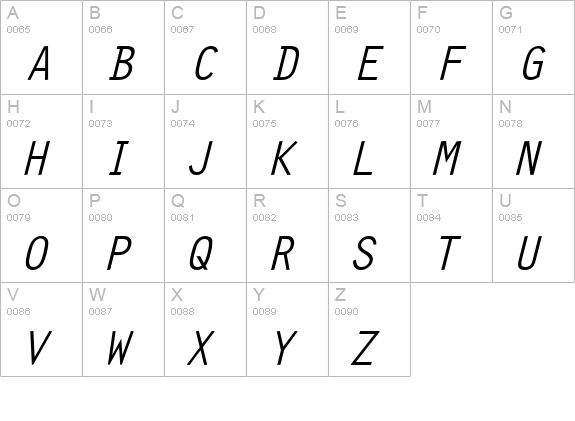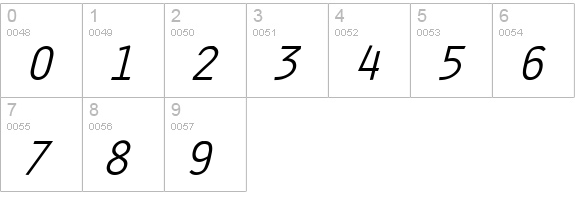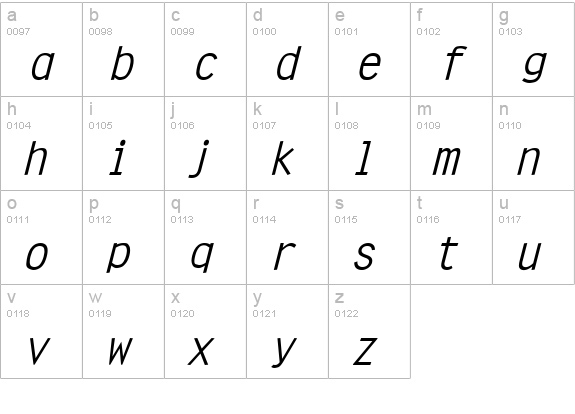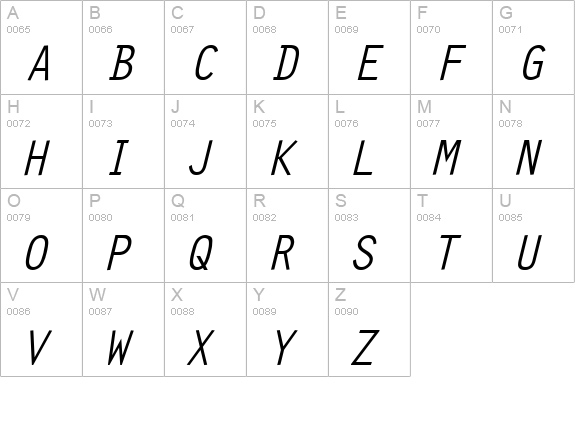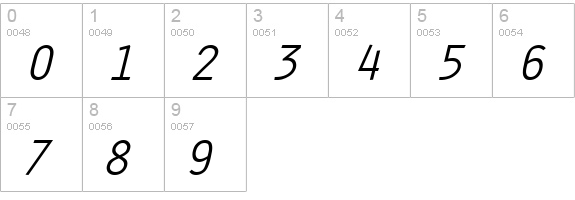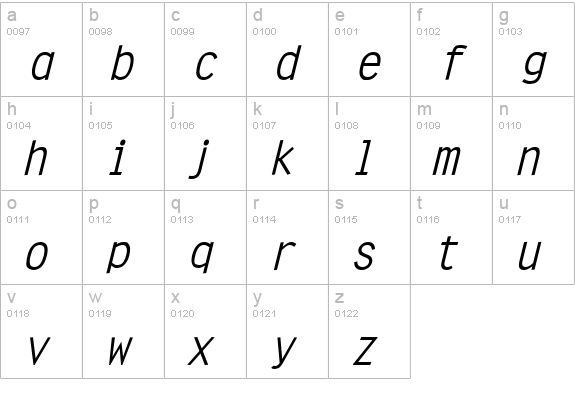
Clean Italic Font Details
Clean Italic is a distinctive, italic variant in the Clean typeface family \xE2\x80\x94 well suited to design and typography projects.
Clean Italic font is a sleek and modern typeface that exudes elegance and sophistication. Its clean lines and subtle curves make it a versatile choice for a wide range of design projects. The italic style adds a touch of flair and dynamism to any text, making it perfect for conveying a sense of style and sophistication. Best of all, Clean Italic font is available for free download at FontsMarket.com. Whether you're working on a project for print or web, this font is sure to elevate your design and make a lasting impression. Download Clean Italic font today and add a touch of class to your next project.